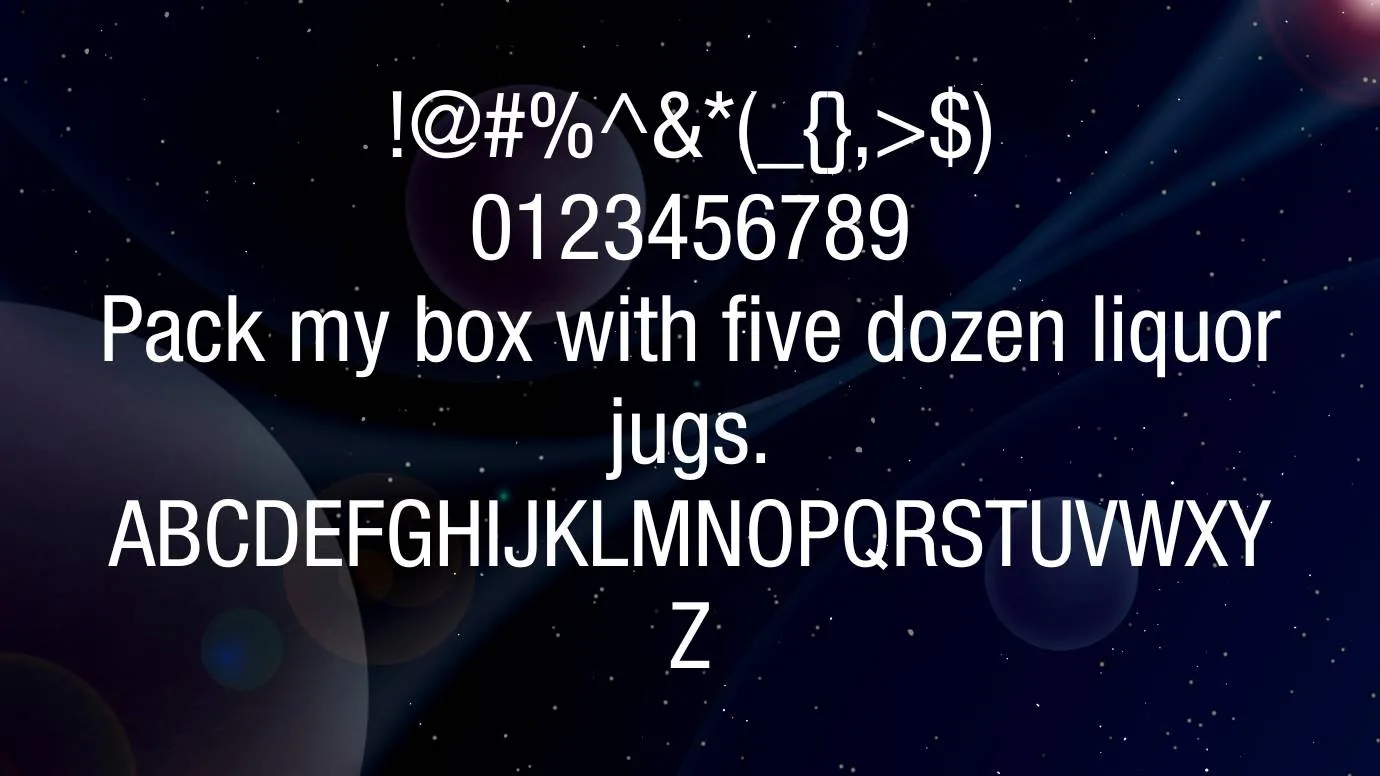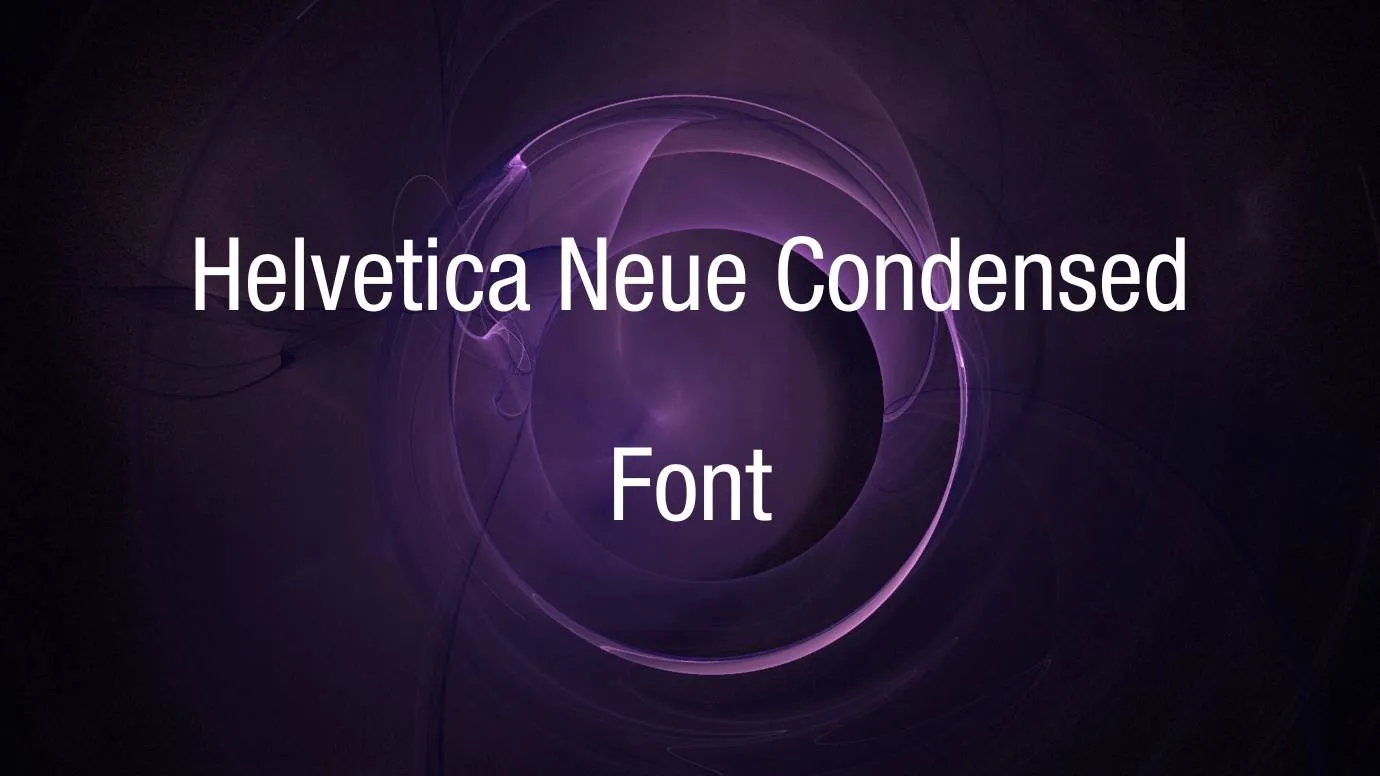
About Helvetica Neue Condensed Font
Helvetica Neue Condensed is part of the expanded and refined Helvetica Neue family, offering the same iconic, neutral Swiss design in narrower set widths. These condensed variants maintain the font's signature clarity and legibility while allowing significantly more characters to fit into a confined horizontal space. They are essential tools for editorial layouts, bold headlines, infographics, user interfaces, and any design where space efficiency is critical. The family includes a full range of weights from Light to Black, providing flexible typographic hierarchy while conserving valuable layout real estate.